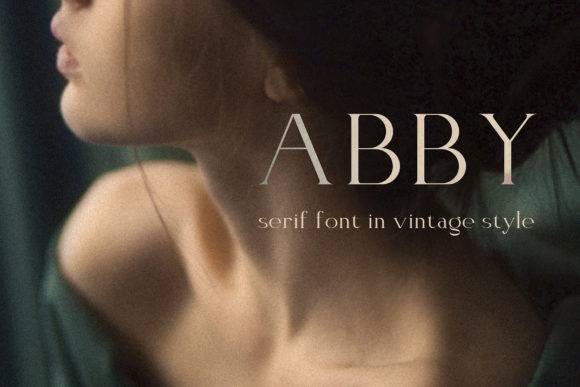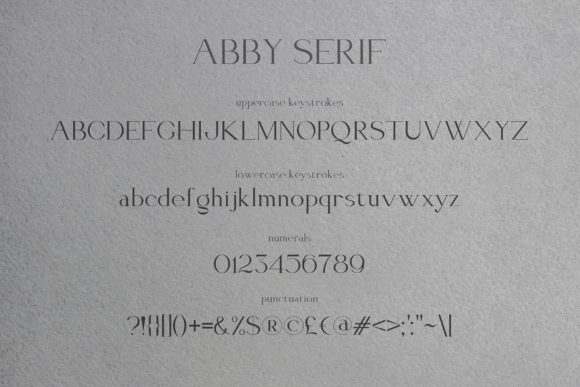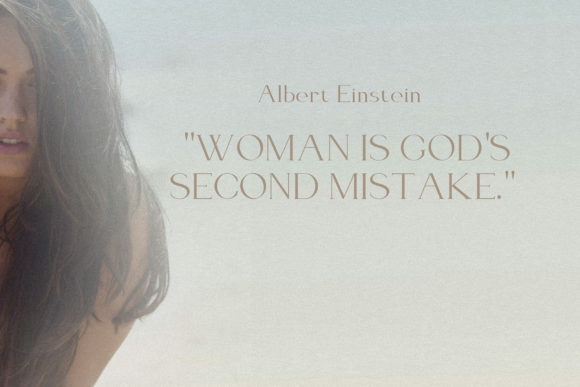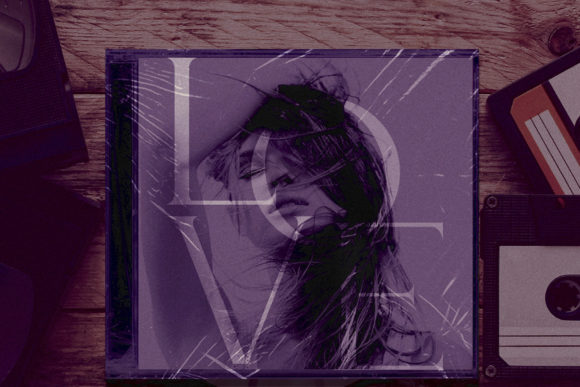
Elegant Font Abby Font
About the Elegant Font Abby Font
The wait is over! The incredible Elegant Font Abby Font is now available for your design toolkit. Elegant and sophisticated font “Abby” inspired by ancient printed texts. It looks great on its own as part of the design in a minimalist style. Play with letters to get different effects.
Great for branding, wedding invitations, packaging, quotes, and labels. And it is also a bold choice of typography for the design of logos, album covers, posters, and much more.
Font Features
• A-Z; a-z character set;
• numbers and punctuation marks, symbols
Elegant Font Abby Font Usage Examples
Elegant Font Abby Font Example